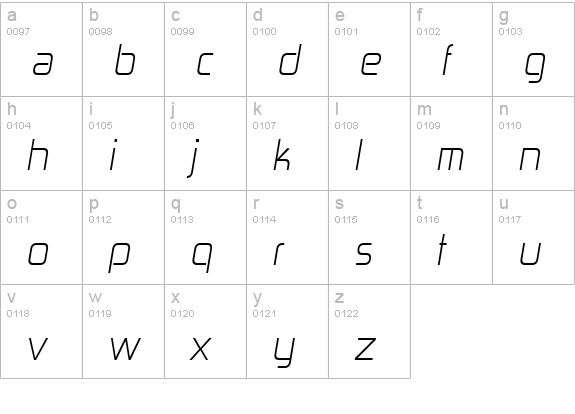
Zekton Lt Italic is a distinctive, italic variant in the Zekton typeface family \xE2\x80\x94 well suited to design and typography projects.
Zekton Lt Italic font is a sleek and modern typeface that exudes sophistication and professionalism. With its slanted design and clean lines, this font conveys a sense of elegance and style. Perfect for adding a touch of flair to your designs, Zekton Lt Italic is versatile and can be used for a variety of projects. What makes this font even more appealing is that it is available for free download at FontsMarket.com. You can easily access this stylish font and incorporate it into your projects without any cost. Whether you're working on a website, a poster, a logo, or any other design project, Zekton Lt Italic is sure to elevate your work and make a lasting impression. Download this font today and unleash your creativity with this beautiful and free typeface.